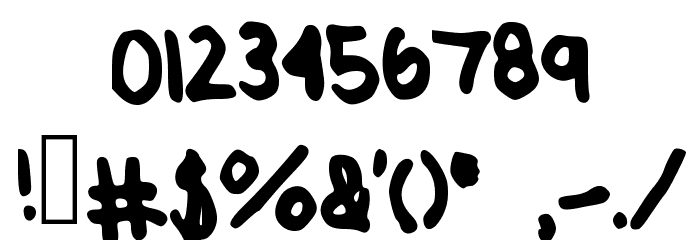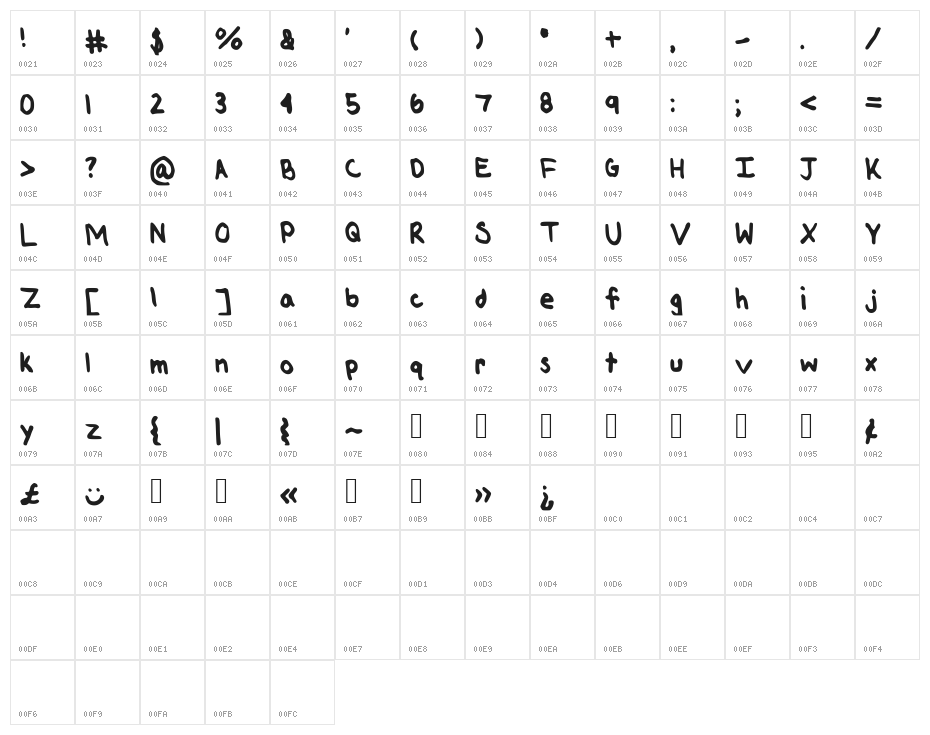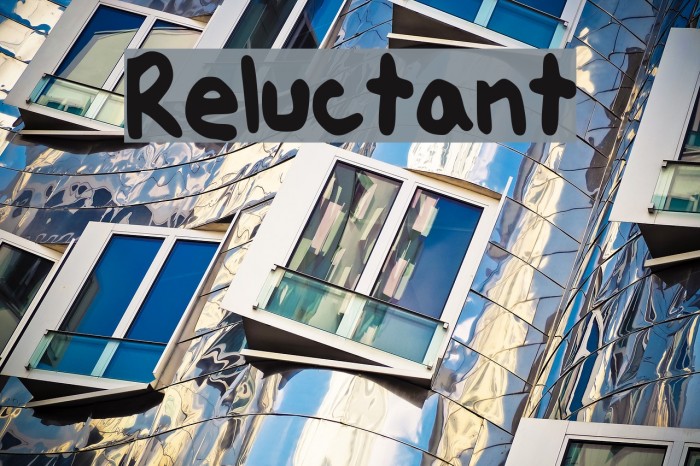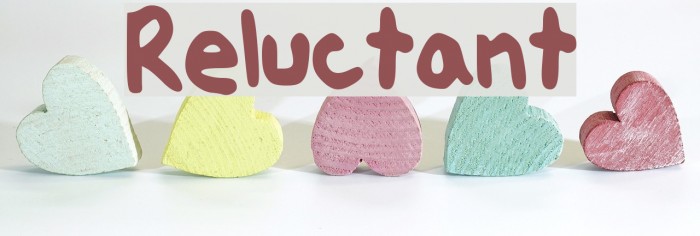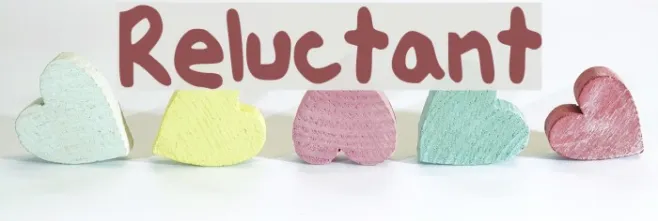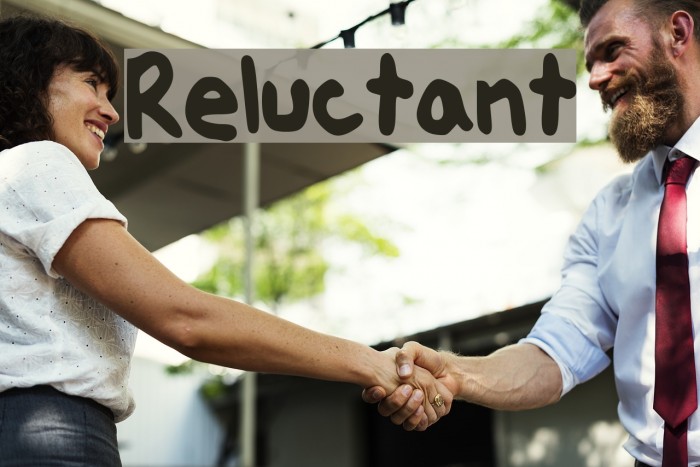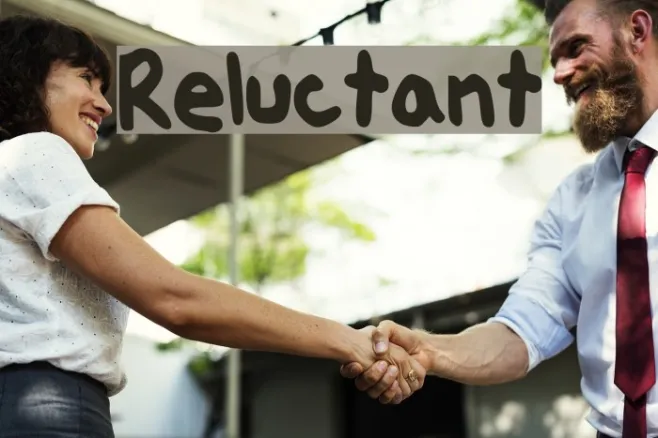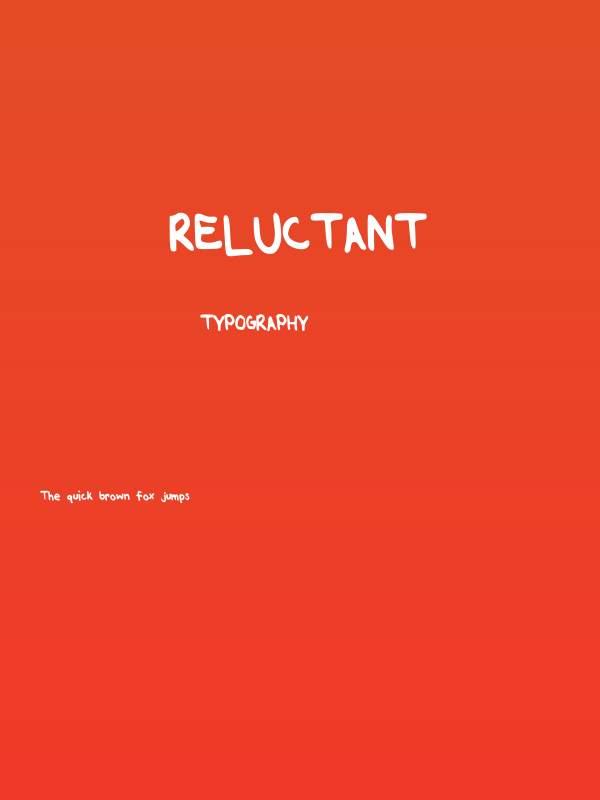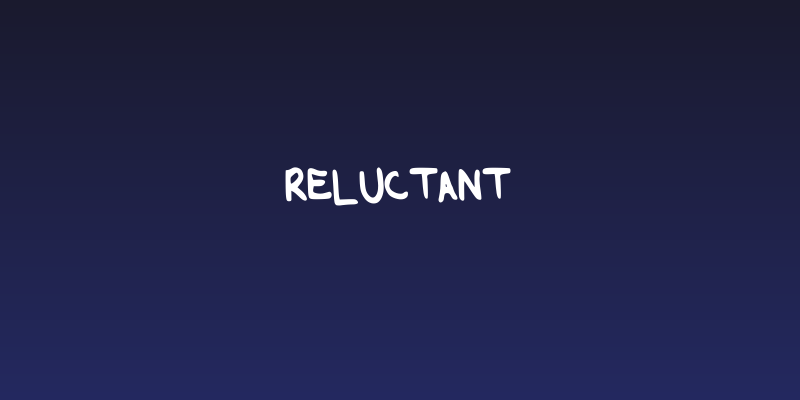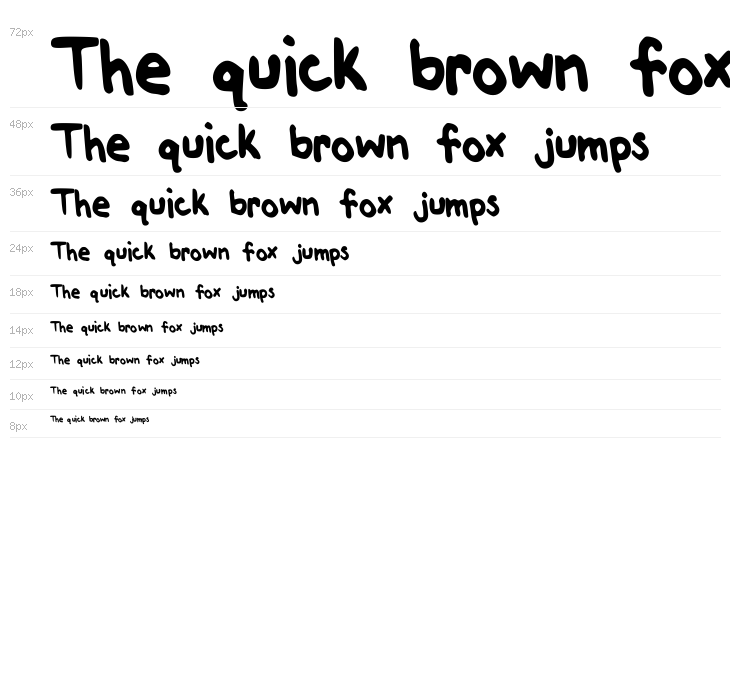
Reluctant Font
Reluctant Description
This font features a playful and informal handwritten style, characterized by its bold and slightly irregular strokes. The letters have a casual, organic feel, with varying thickness that adds a dynamic and lively touch. The uppercase and lowercase letters maintain a consistent style, with rounded edges and a slightly uneven baseline, enhancing its whimsical appearance. The numerals and special characters follow the same playful aesthetic, making it suitable for creative and informal projects.
| Proposed Projects | Ideal for children's books, greeting cards, playful branding, and casual invitations. |